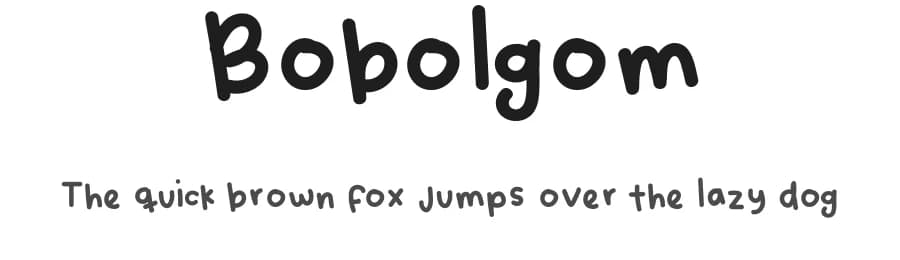
About Bobolgom Font
Bobolgom is a script & handwritten font designed by Alex. It includes 112 glyphs, a regular weight, OTF (CFF) format, and 198 languages. Bobolgom is free to download; check the license details on this page before commercial use. Script & handwritten fonts like Bobolgom work best for wedding invitations, greeting cards, signatures, and elegant branding.
Bobolgom Font is a script font that shines as a display or heading face. Pair it with a clean sans-serif or serif font for body text β the contrast creates a clear hierarchy while the two styles stay balanced and easy to read.
Bobolgom Font
by Alex
Bobolgom Font is a script handwritten typeface by Alex, ideal for logos, invitations, branding, and creative projects.